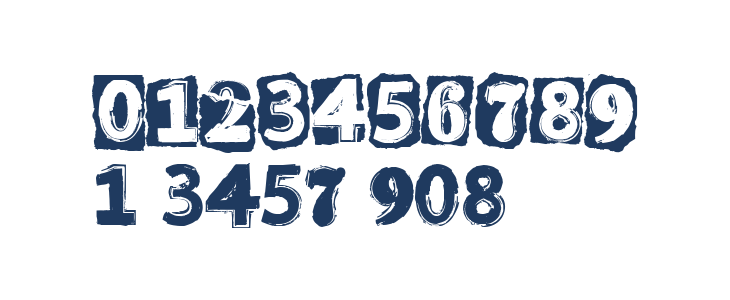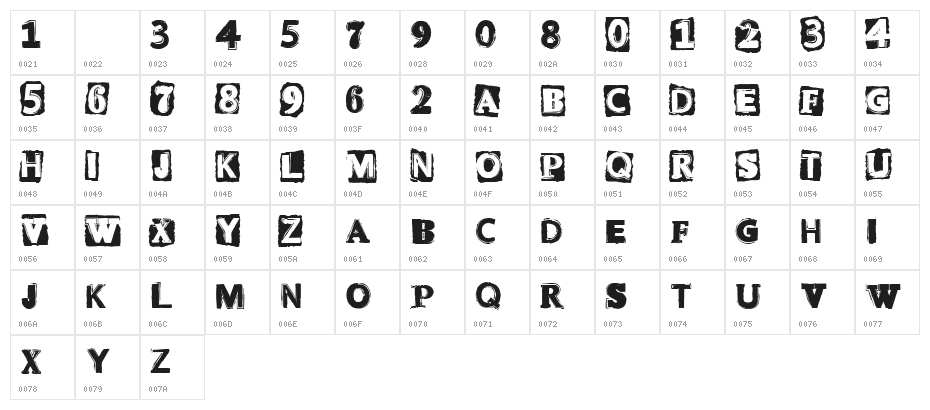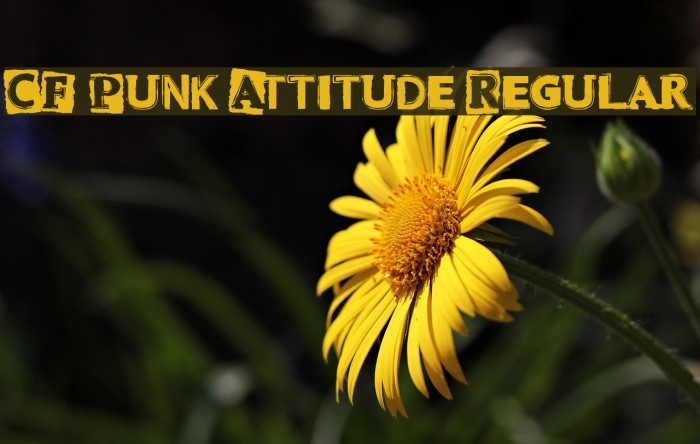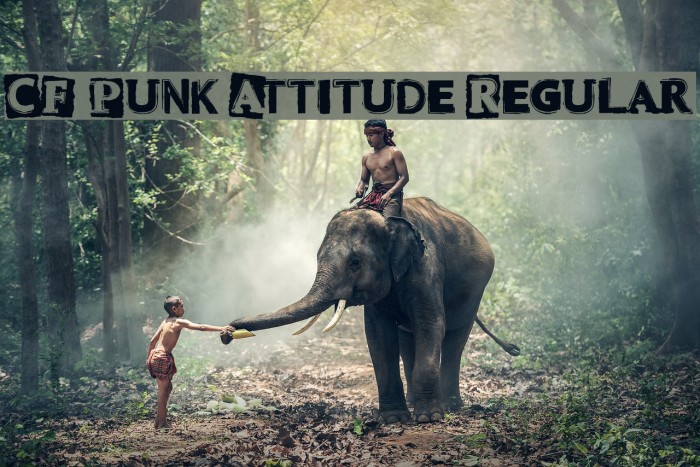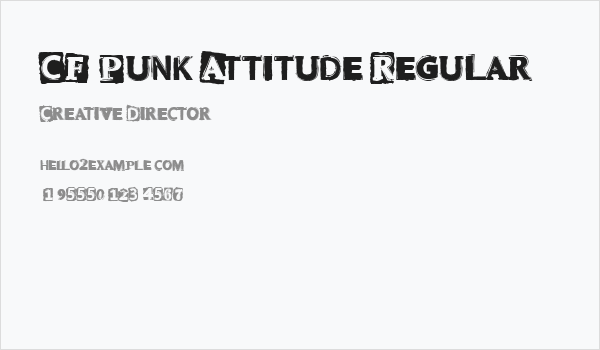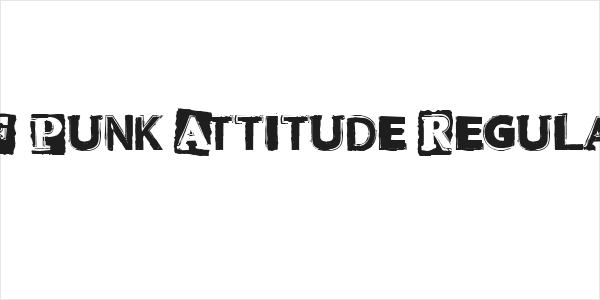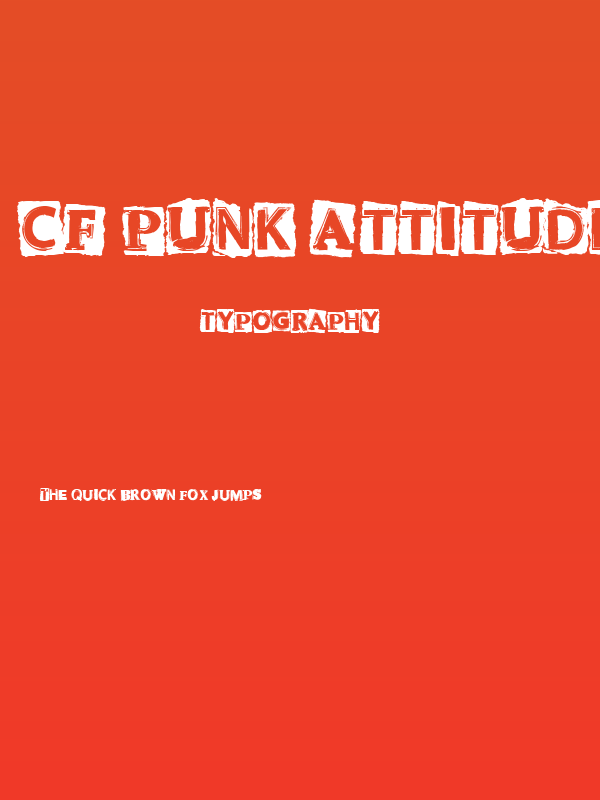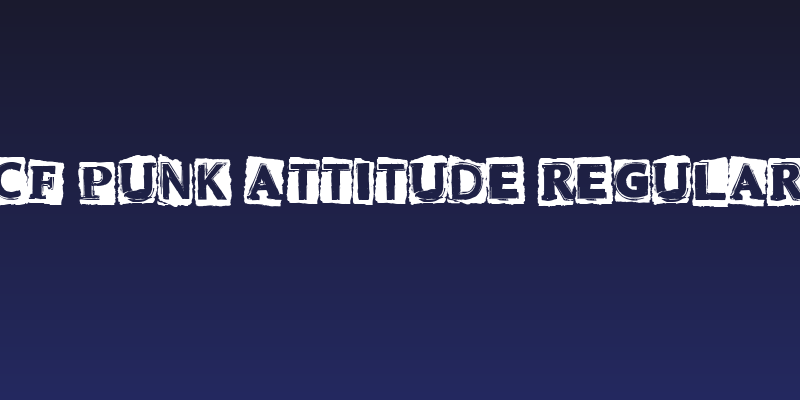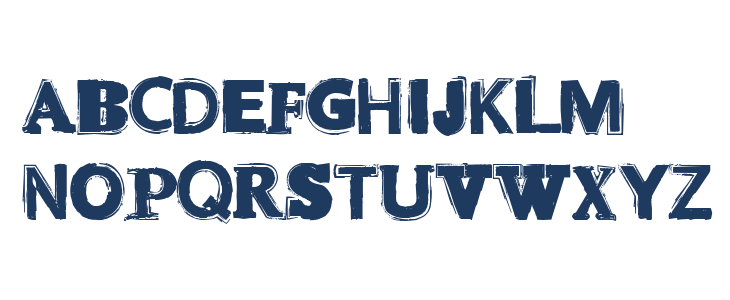
CF Punk Attitude Regular Font
CF Punk Attitude Regular Description
This font exudes a rebellious and edgy vibe, characterized by its bold, distressed appearance. Each letter is encased in a rough, uneven outline that gives it a grungy, punk-inspired look. The uppercase letters are particularly striking, with a strong presence and a sense of movement, as if they are bursting out of their confines. The numbers and special characters maintain this rugged aesthetic, ensuring a cohesive style throughout. The font's unique texture and boldness make it stand out, perfect for projects that require a touch of attitude and individuality.
| Overall Style | Punk, Grunge, Edgy |
| Proposed Projects | Ideal for music album covers, posters, streetwear branding, and edgy graphic designs. |